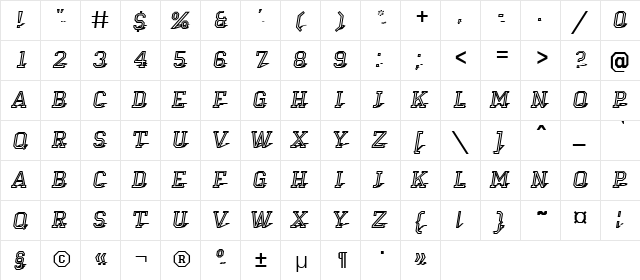
a_CampusOtl3DShad Regular
Design Context for a_CampusOtl3DShad Typeface
a_CampusOtl3DShad is a composed and adaptable typeface that performs quietly and consistently across a wide range of design contexts.